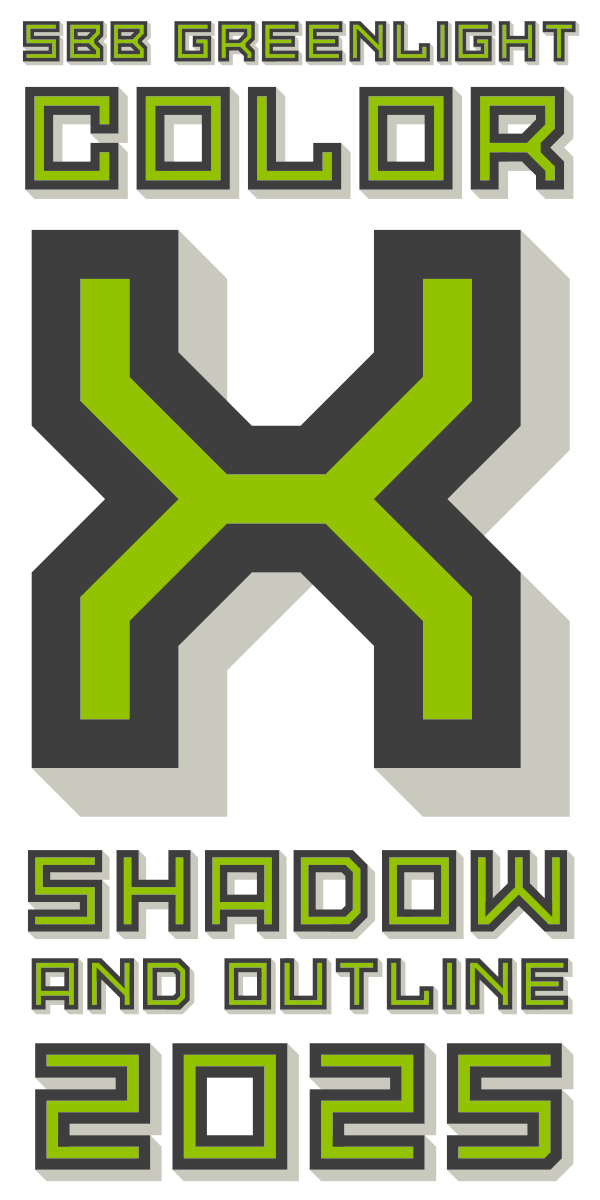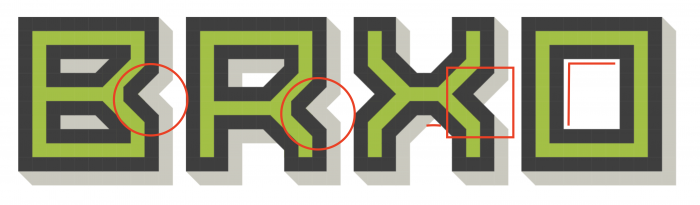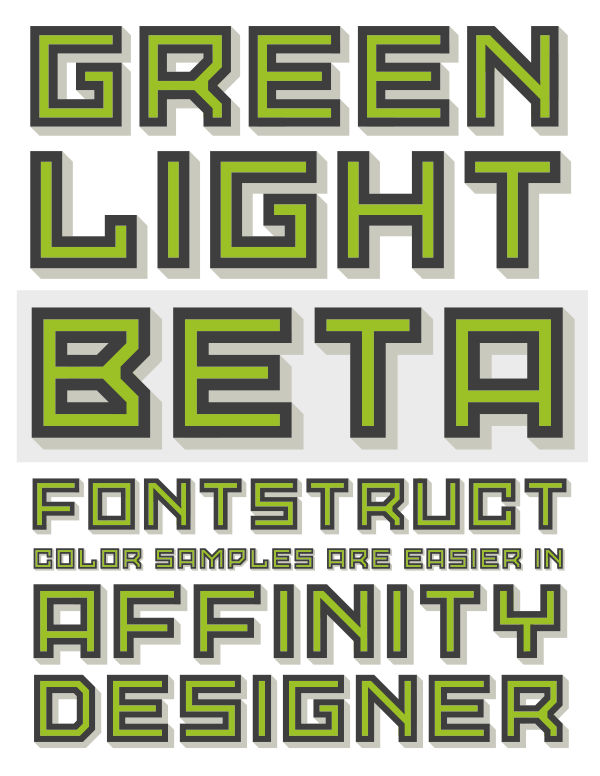
I thought your sample was colorized. The font itself is colored. Very cool.
what a great way to make your font stand out!
Congrats, impressive results! My only little "but"s are: 1) the middle right part of the B and R should look like the X, 2) the middle shadow of the X is incomplete, IMHO, and 3) the inner shadow of the 0 is missing. Btw, have you thought about completing the basic set?
@elmo since both that slope and the shadow angle are 135º, the shadow is behid the letter, therefore making [B] and [R] wrong
Good catch. Fixed the shadow on all of those. And yes, I plan on completing the basic character set. Definitely still a work in progress.
Don't worry, I understand. You are seeing this: working with layers is another way to view (and complicate) the structure of each glyph... Please keep at it.
Great
theres too much grey
and there're two [+]???
Fixed the gap in the @. The second + is actually the ampersand glyph. The design doesn't lend itself well to an actually ampersand.